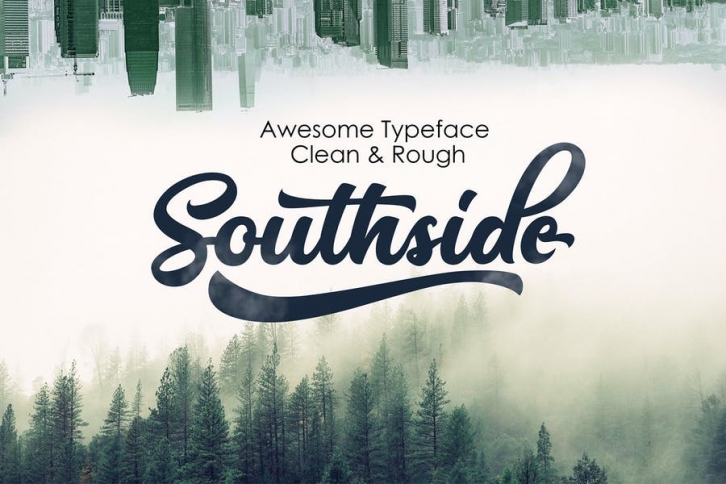
Southside is a beautiful signature font, This Font will look gorgeous on all your designs, invitation, book, branding materials, logo's, t-shirt, poster and all project design other.
Southside contains standard characters, lowercase, lowercase alternates & Uppercase, numbers, punctuation, ligatures and international glyphs.You will receive OTF, TTF and WEBFONT files.